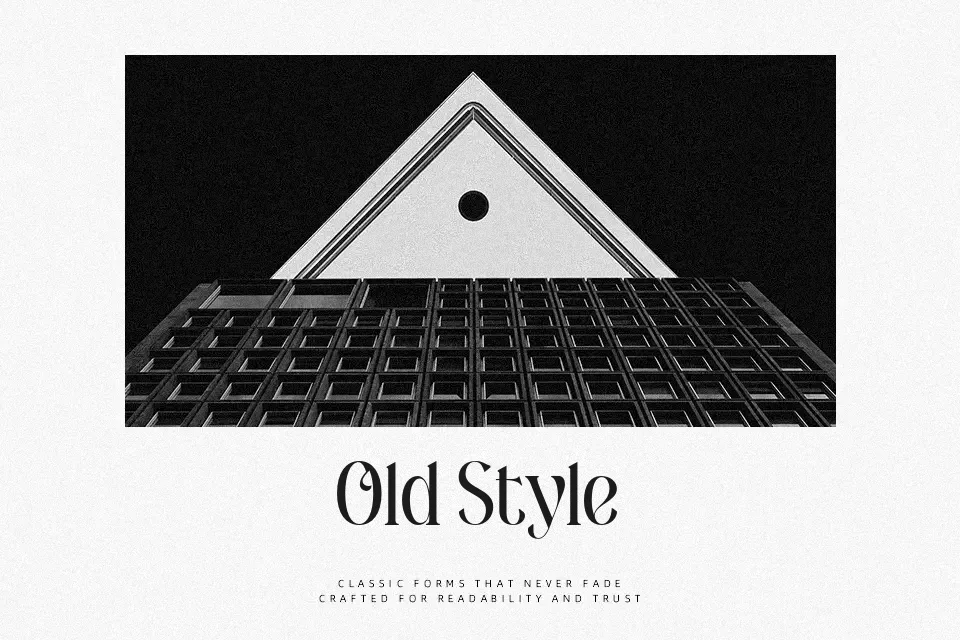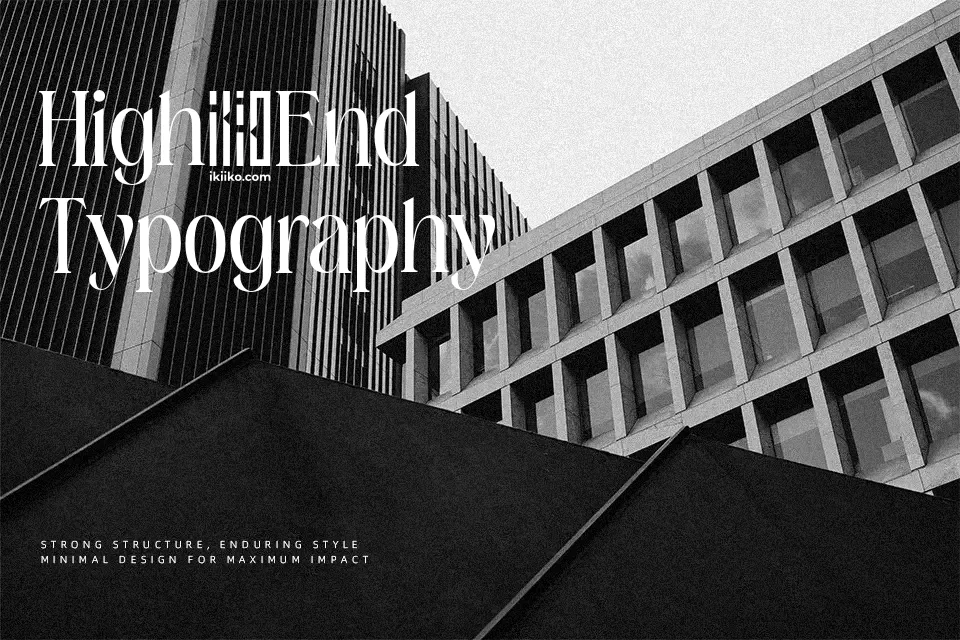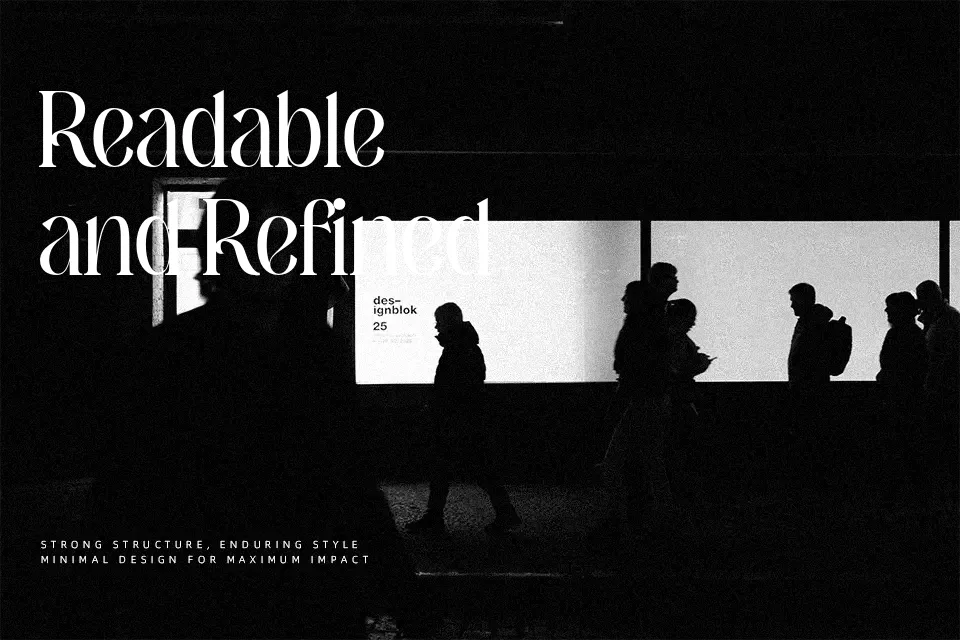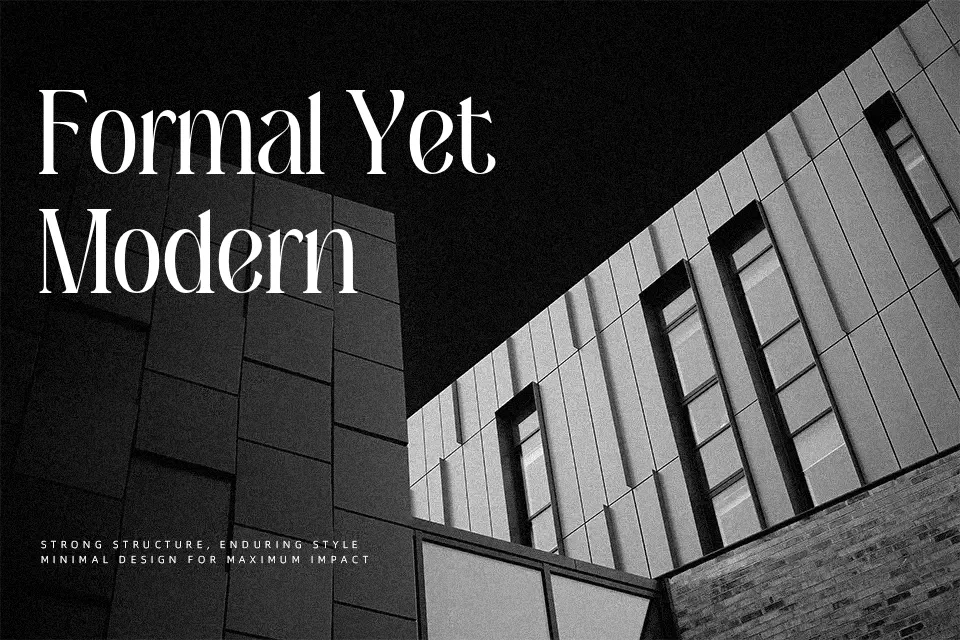
Romancio Font
Romancio Font introduces a stylized retro aesthetic with flowing curves and refined stroke contrast. The letterforms carry a distinctly romantic energy, utilizing dynamic proportions and tight spacing to create cohesive, impactful words. The bold transitions between thick and thin strokes help maintain clarity in larger headlines, making the design particularly effective for expressive display work. It fits naturally into cosmetic packaging, high-end invitations, and vintage-inspired editorial headers. However, the decorative details become less effective at smaller sizes, and the highly stylized shapes reduce comfort during extended reading. This typeface is built for commanding attention in short placements rather than delivering dense informational text.
boutique cosmetic branding
wedding invitation headers
vintage editorial titles
romantic packaging design
spreadsheet data
Perfect for branding, headline, and packaging, with a elegant and decorative style.